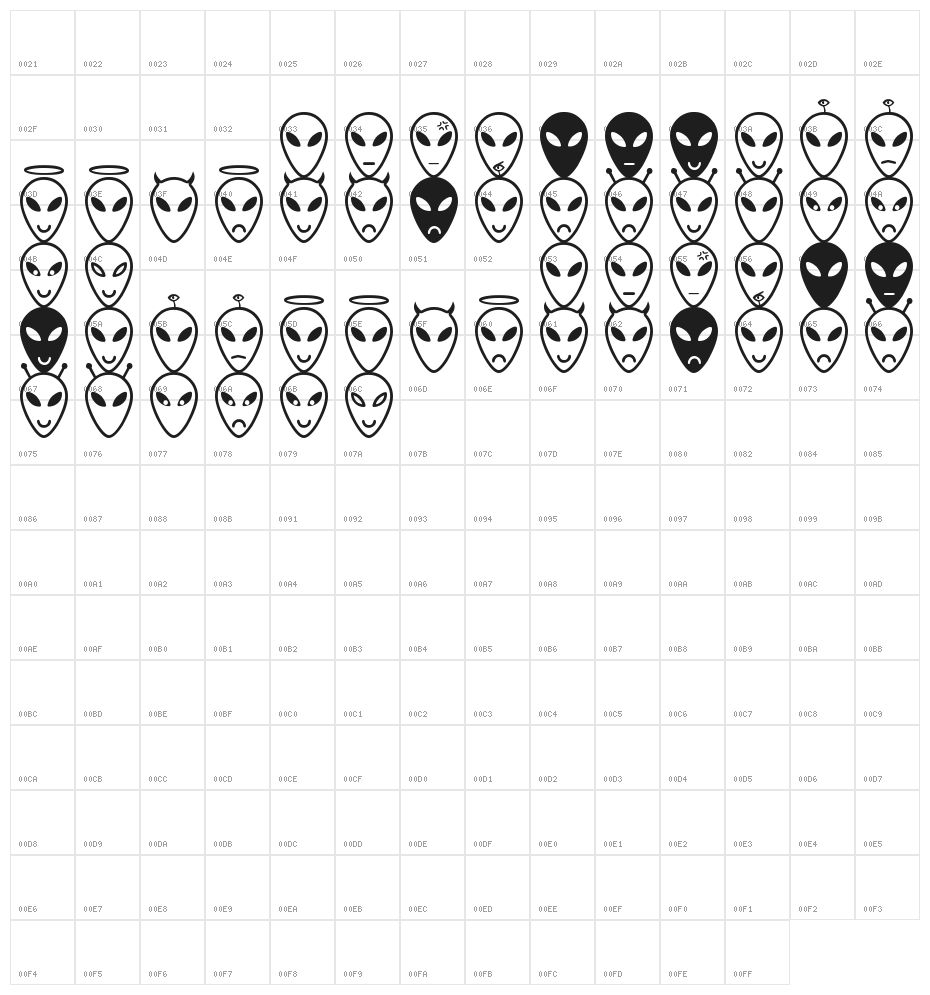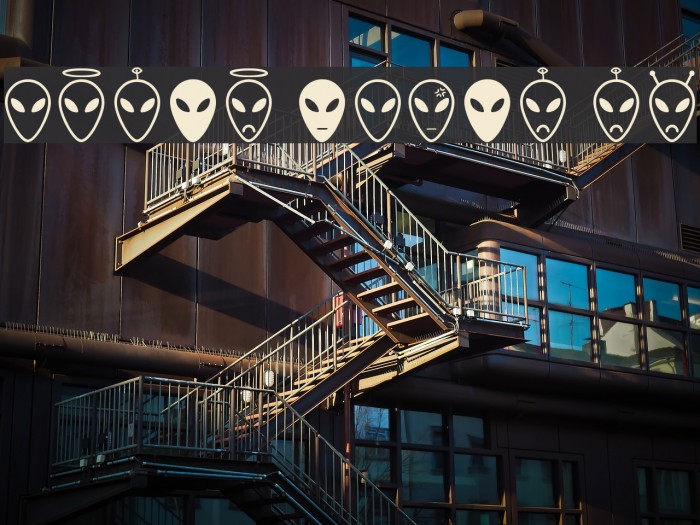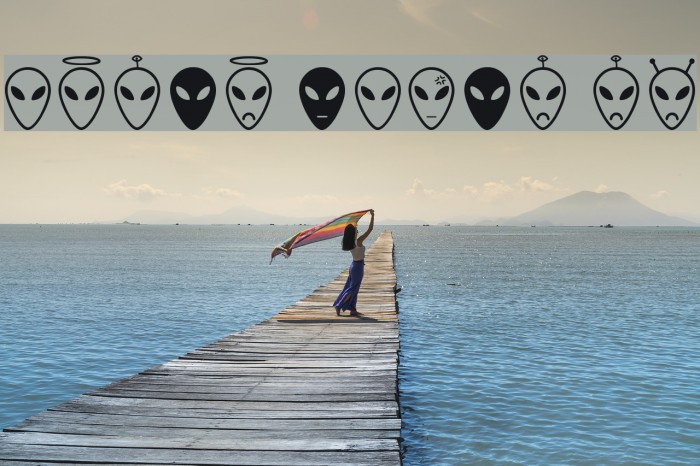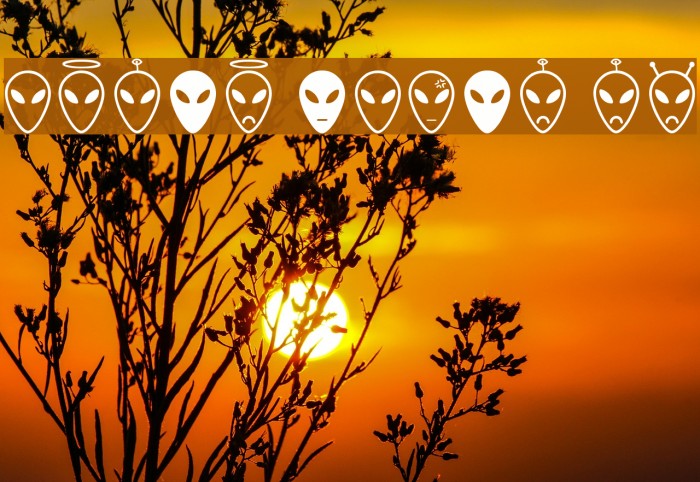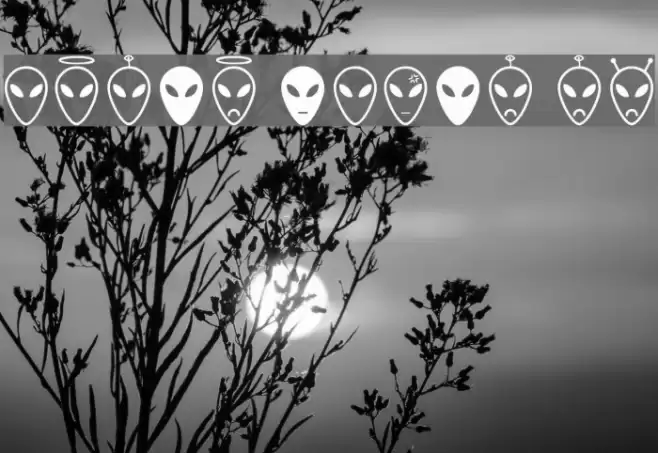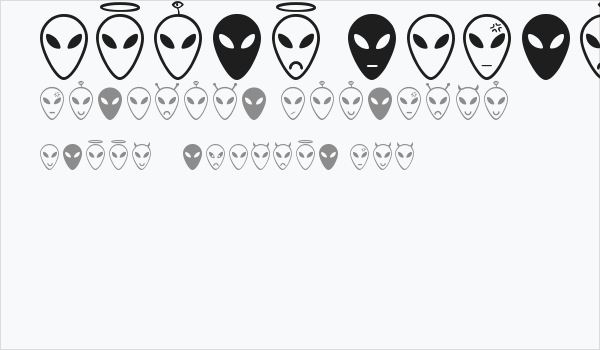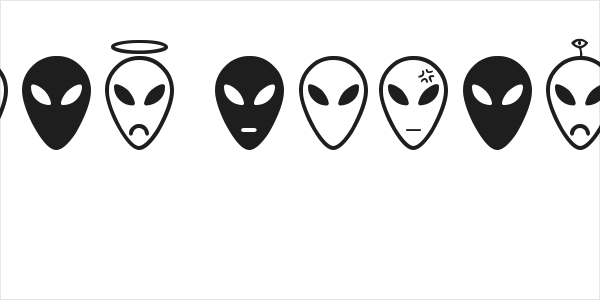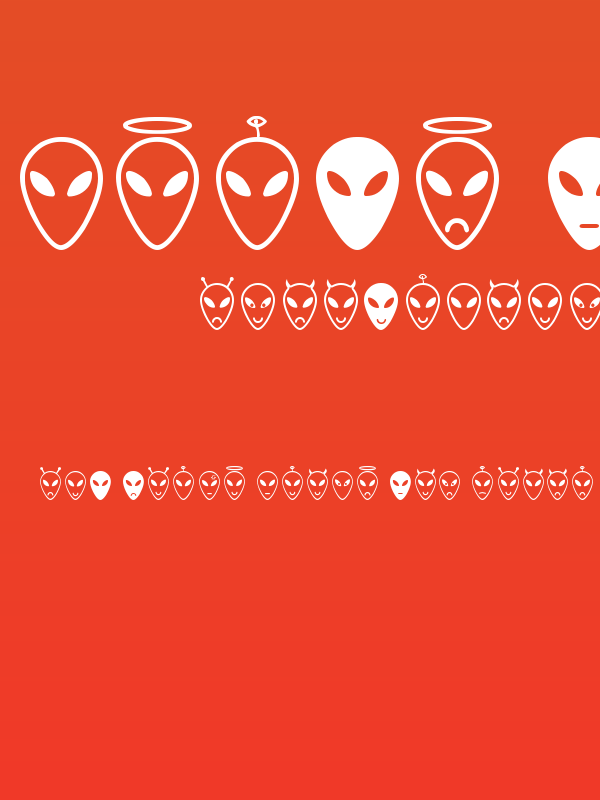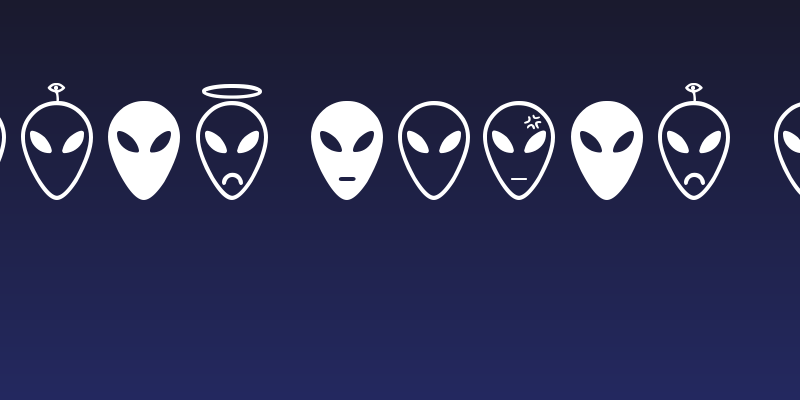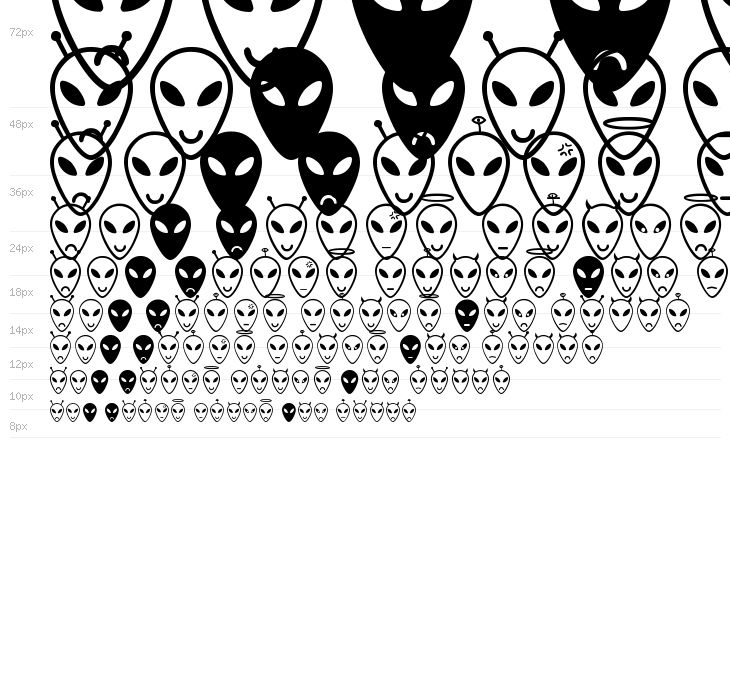
Alien faces St Font
Alien faces St Description
A decorative display font featuring stylized alien faces as glyphs, each with unique expressions or accessories such as halos, antennas, and horns. The characters are outlined with some filled variants, offering playful and thematic visual diversity.
| Overall Style | Decorative, Playful, Thematic |
| Use Case | Logos, Posters, Headlines, Themed Graphics |
| Proposed Projects | Children's books, sci-fi posters, party invitations, themed event branding, stickers. |